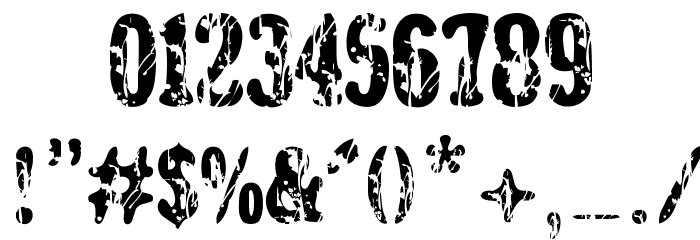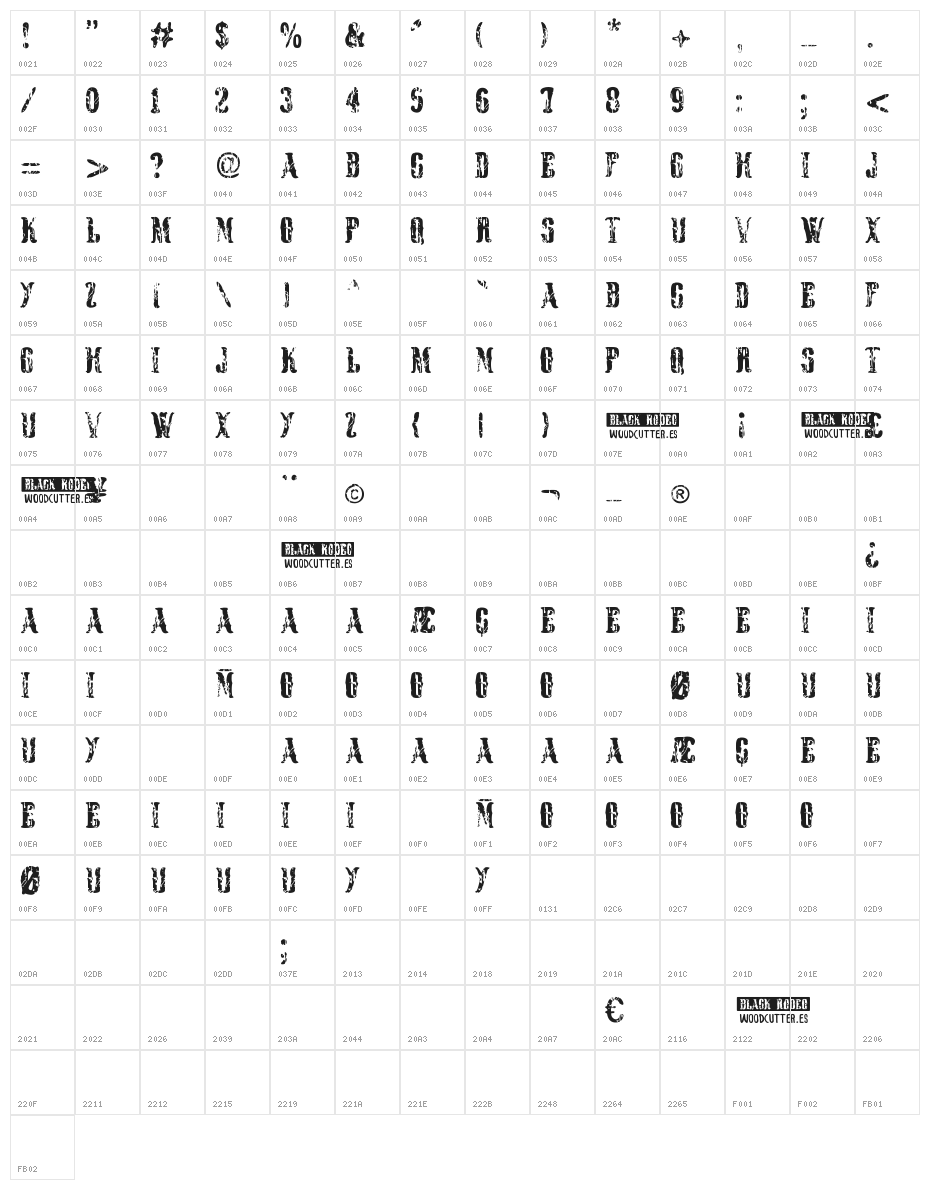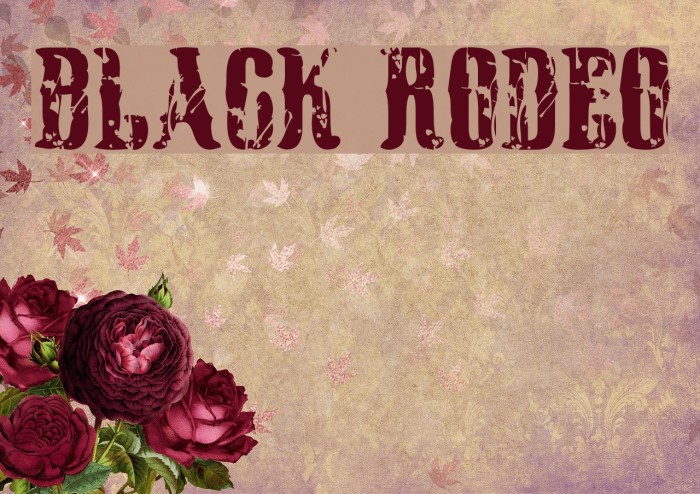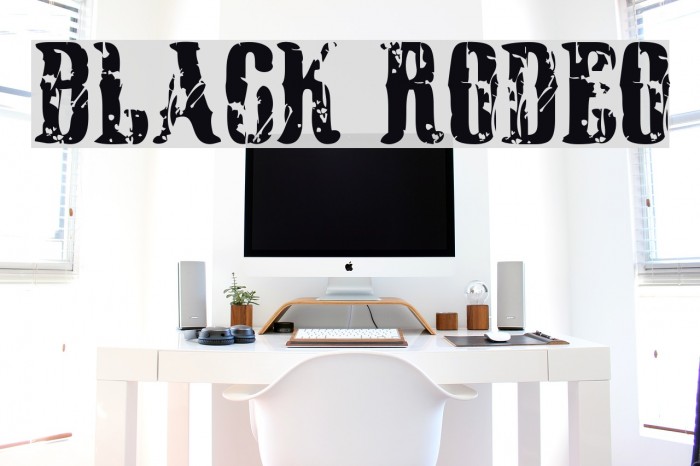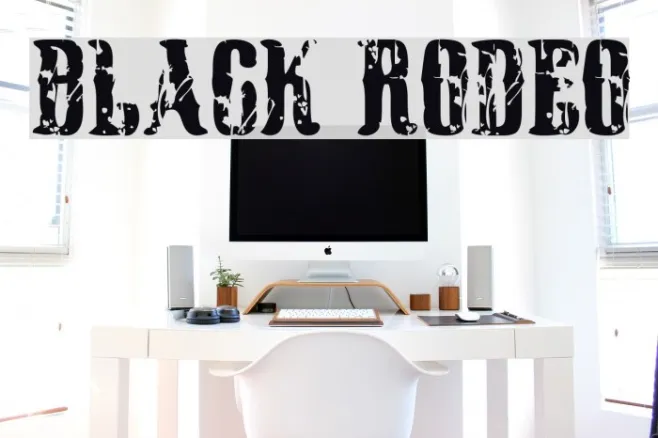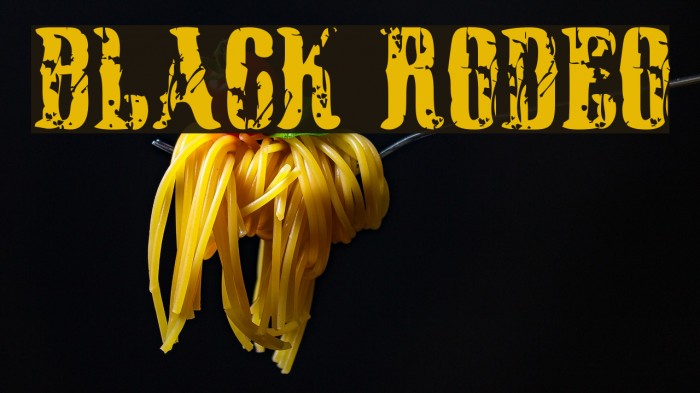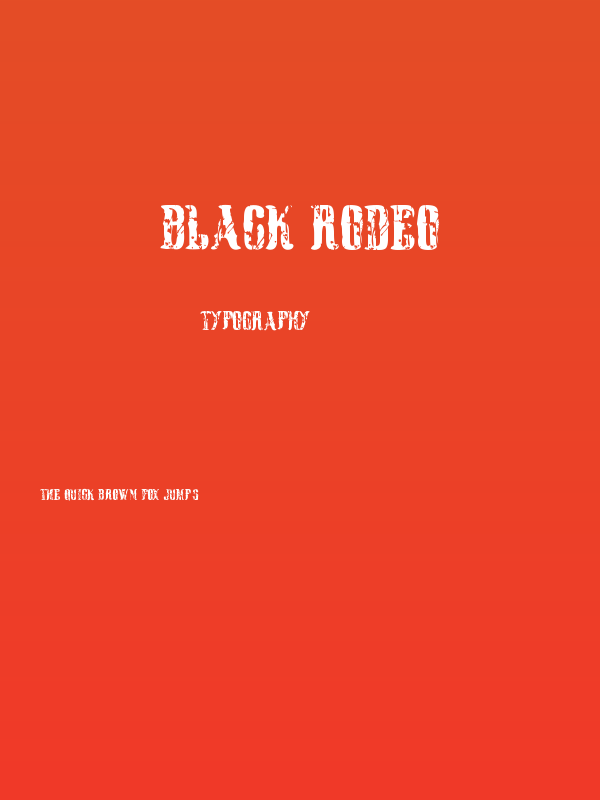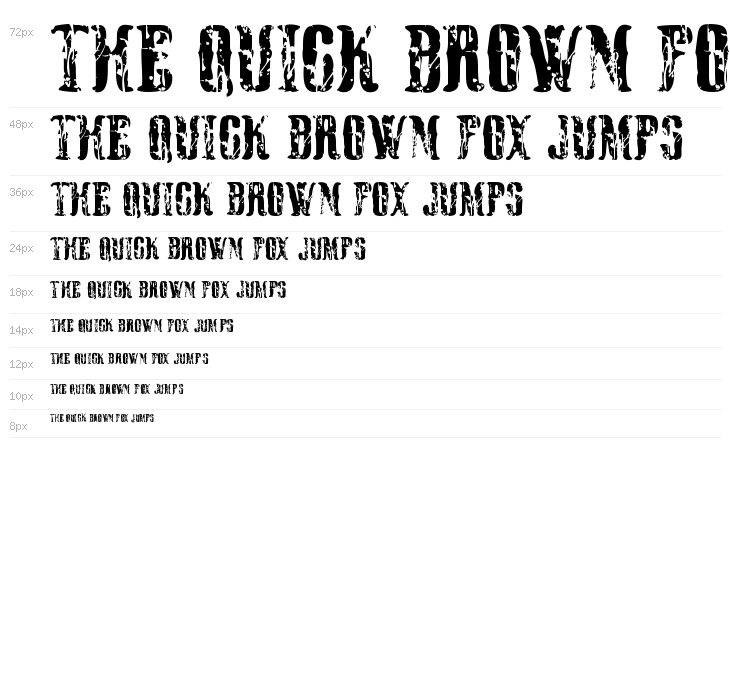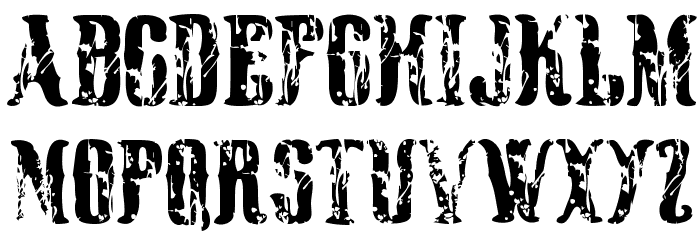
Black Rodeo Font
Black Rodeo Description
This font features a bold, distressed style with a rugged, weathered appearance. The characters are heavily textured, giving them a worn, vintage look reminiscent of old western posters or rustic signage. Each letter and number is uniquely distressed, adding to the overall handcrafted feel. The boldness of the font ensures it stands out, while the distressed elements provide a sense of history and character. The uppercase and lowercase letters maintain a consistent style, with the numbers and special characters following suit. This font is perfect for projects that require a touch of nostalgia or a rugged, adventurous aesthetic.
| Proposed Projects | Ideal for vintage-themed posters, rustic branding, western-style signage, and adventurous graphic designs. |